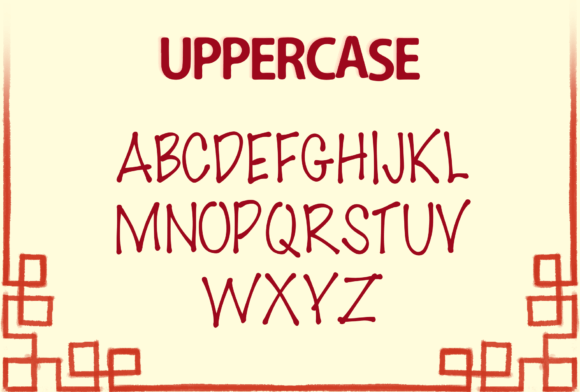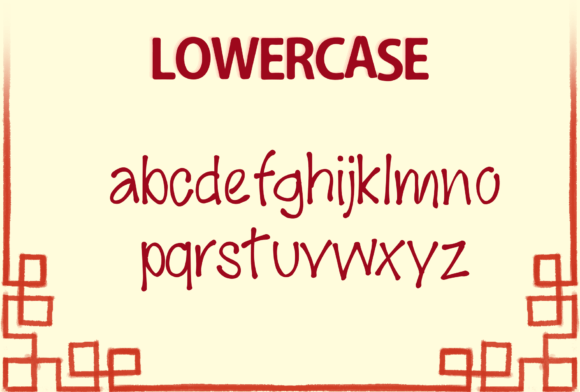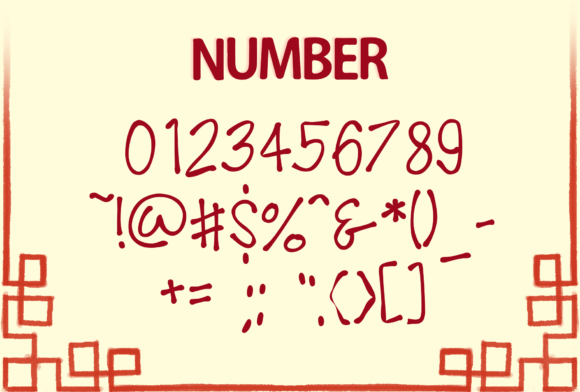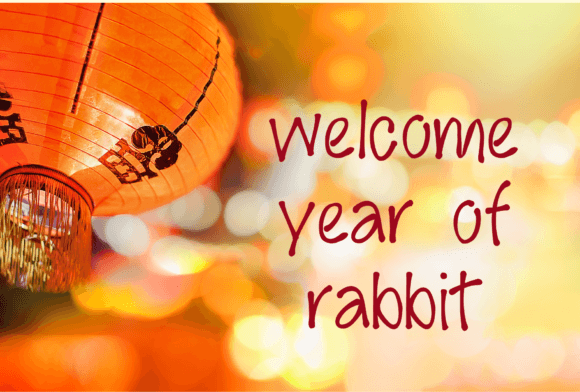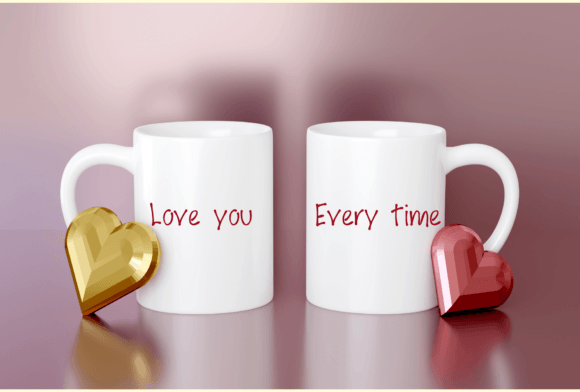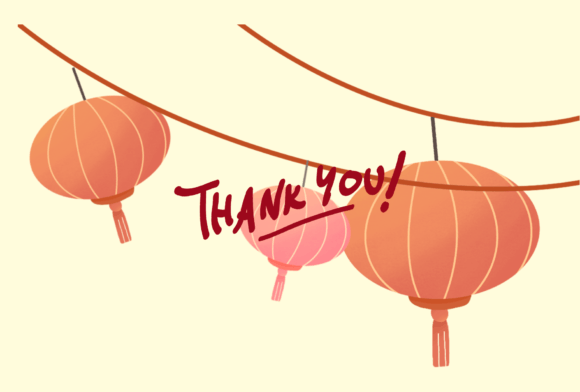
Discover the Charm of And Then Font: Your New Go-To Handwritten Font
Are you tired of using the same old fonts for your designs and crafts? Look no further! And Then Font is here to add a touch of cuteness and charm to your projects. This beautiful handwritten font is perfect for a variety of uses, from digital designs and presentations to crafts and greeting cards. In this article, we’ll dive into the world of And Then Font and explore its features, benefits, and uses.
What is And Then Font?
And Then Font is a delightful handwritten font that exudes warmth and personality. Its unique and quirky style makes it perfect for adding a personal touch to your designs. Whether you’re a designer, crafter, or DIY enthusiast, this font is sure to become your new favorite go-to font.
Features of And Then Font
- Cute and charming: And Then Font has a playful and whimsical feel that’s perfect for creating eye-catching designs.
- Handwritten style: This font has a beautiful, handwritten look that’s perfect for adding a personal touch to your projects.
- Versatile: And Then Font can be used for a wide range of projects, from digital designs and presentations to crafts and greeting cards.
- Easy to read: Despite its playful style, And Then Font is easy to read and understand, making it perfect for use in body text.
Uses of And Then Font
And Then Font is a versatile font that can be used for a wide range of projects. Here are some ideas to get you started:
- Crafts: Use And Then Font to add a personal touch to your scrapbooking, journaling, and other craft projects.
- Digital design: Add a touch of whimsy to your digital designs, such as social media graphics, blog posts, and website headers.
- Presentations: Use And Then Font to create eye-catching presentations that are sure to engage your audience.
- Greeting cards: Create beautiful and unique greeting cards for special occasions, such as birthdays, weddings, and holidays.
Benefits of Using And Then Font
So why choose And Then Font for your projects? Here are just a few benefits:
- Adds a personal touch: And Then Font has a unique and personal style that’s sure to make your projects stand out.
- Versatile: And Then Font can be used for a wide range of projects, making it a great addition to your font library.
Tips for Using And Then Font
Here are a few tips for getting the most out of And Then Font:
- Use it sparingly: And Then Font is a bold and eye-catching font, so use it sparingly to avoid overwhelming your design.
- Pair it with other fonts: Try pairing And Then Font with other fonts to create a unique and interesting look.
- Experiment with colors: And Then Font looks great in a variety of colors, so don’t be afraid to experiment and find the perfect color for your design.